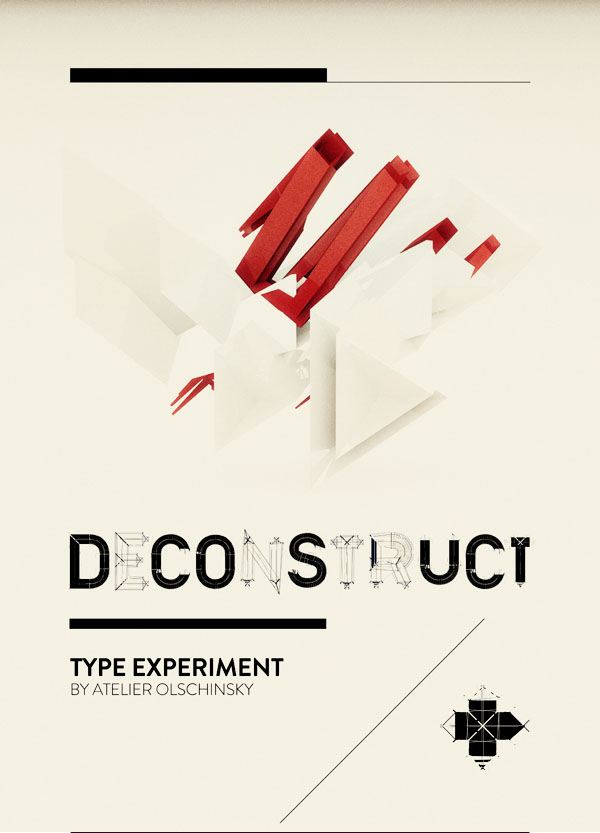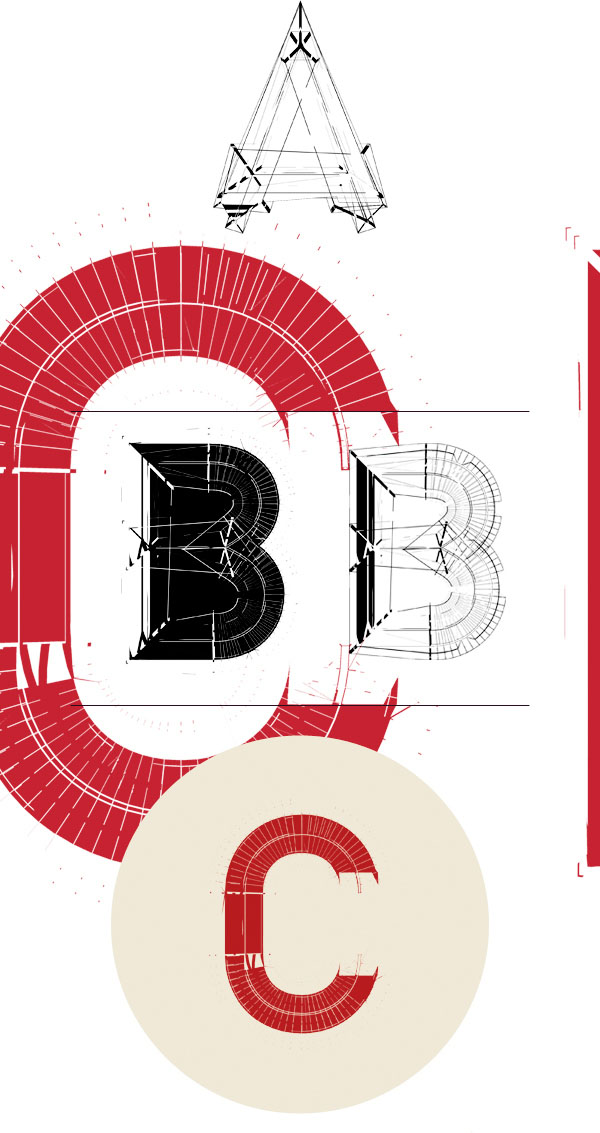
Deconstruct Type.
We already featured different experimental artworks by Atelier Olschinsky on We AND THE COLOR in the past. The small Vienna, Austria-based creative studio by Peter Olschinsky and Verena Weiss is famous for its experimental and abstract digital artworks – often working with several effects such as distortion or deconstruction and that’s exactly what they did by creating the experimental “Deconstruct” typeface.